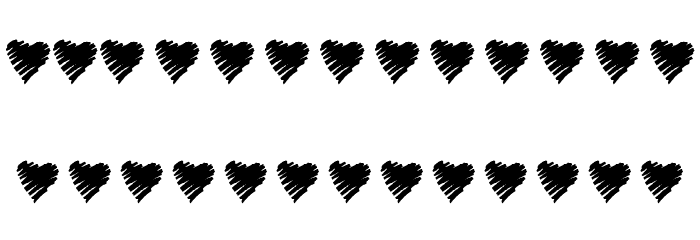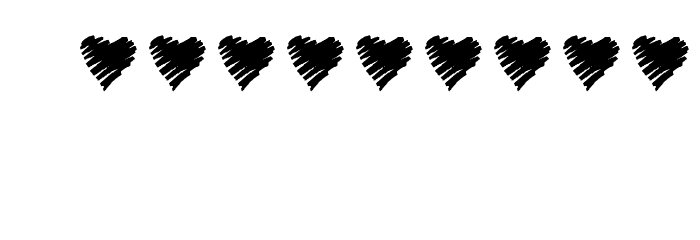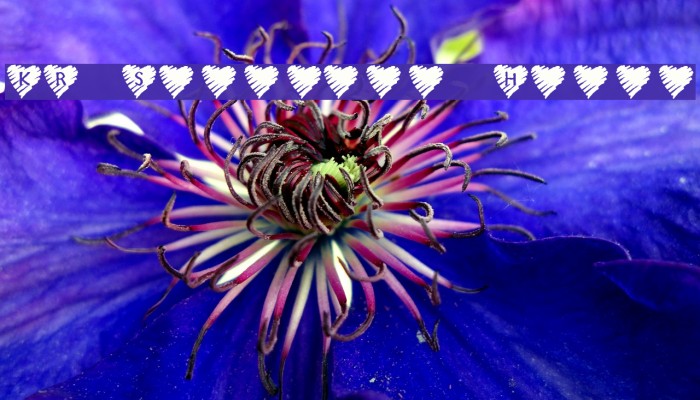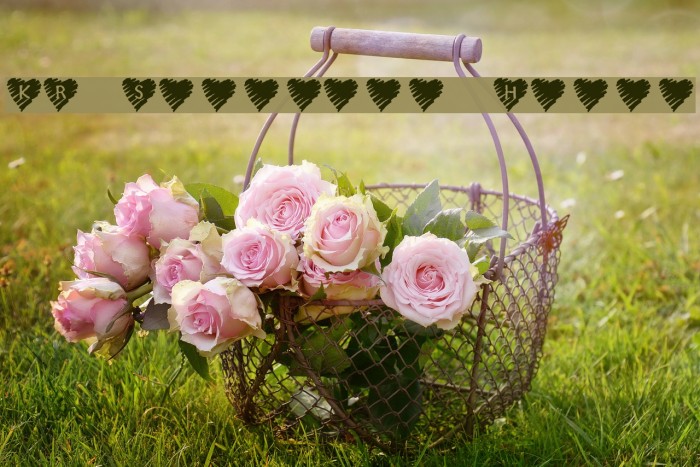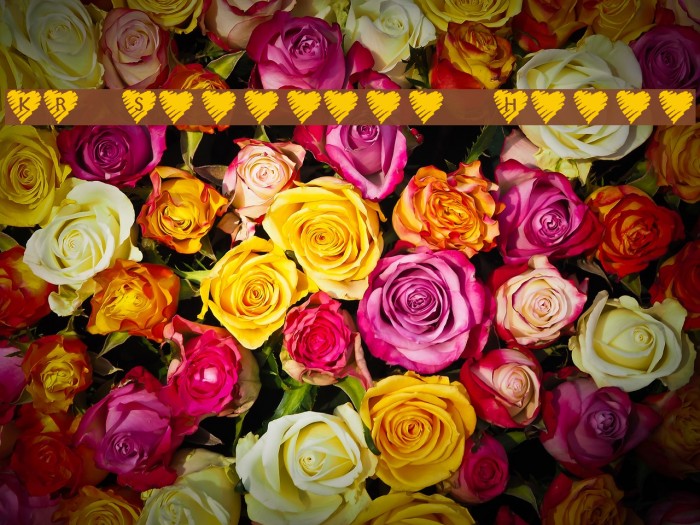
KR Scribble Heart Font
This playful and decorative font features each character enclosed within a scribbled heart shape, creating a whimsical and charming appearance. The letters are bold and easily legible, despite the intricate heart design that surrounds them. The scribble effect adds a hand-drawn, artistic touch, making it ideal for projects that require a personal or romantic feel. The font maintains consistent sizing and spacing, ensuring readability while adding a unique visual element. Perfect for creative projects, this font stands out with its distinctive style and playful character.
A playful, decorative font with characters enclosed in scribbled hearts.
- Proposed Projects: Ideal for Valentine's Day cards, wedding invitations, romantic posters, and playful branding.
- Use Case: Headlines, Logos, Invitations